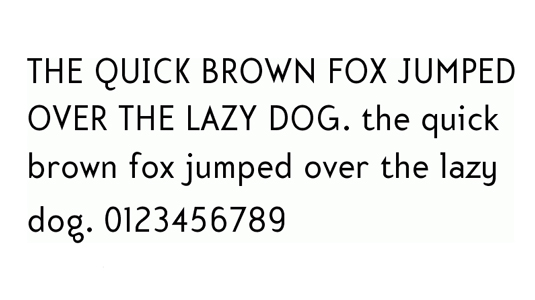
Greatest fonts countdown: 62 - Mercury
We're counting down the 100 greatest typefaces in existence. Here is number 62...
FontShop AG, the renowned type foundry, conducted a survey based on historical relevance, sales at FontShop.com, and aesthetic quality. With a few additions from the experts at Creative Bloq and Computer Arts magazine, the best fonts ever were selected for the new book, 100 Best Typefaces Ever.
But without further ado, here is the 62nd best typeface…
62. Mercury
- Peter Bruhn, 1998
T26 Digital Type Foundry was established by Carlos and Sun Segura in 1994 to promote the development, promotion, and distribution of independent type design. Designed by Peter Bruhn in 1998, Mercury is a proper workhorse of a font for more serious work.
If you have a project where you need to handle complex text, this will do the job as it has a vast amount of weights plus a dedicated display version for headlines and larger text. There's also a dedicated text version for body copy and smaller text, making it a great all-rounder. Not to be confused with H&FJ's Mercury – which is also a great typeface, particularly for newspaper usage.